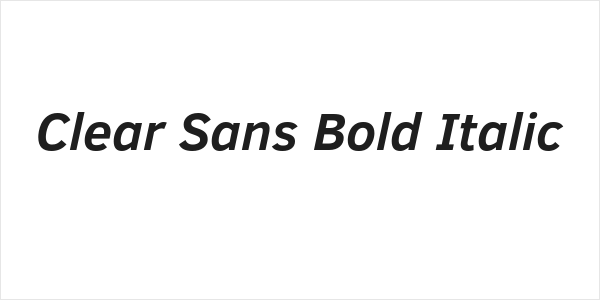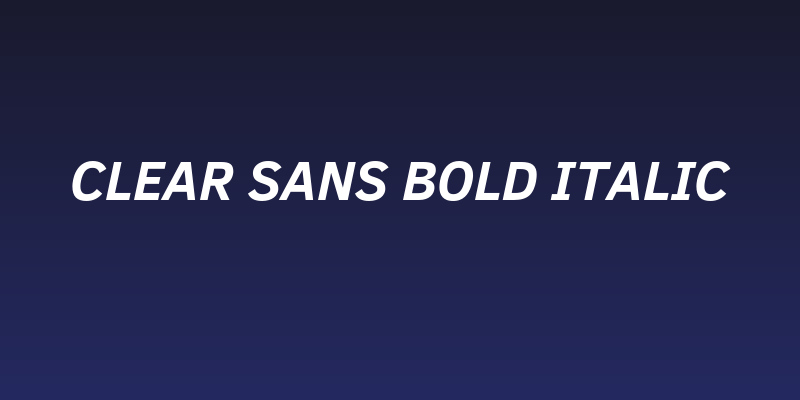
Clear Sans Bold Italic Font
Clear Sans Bold Italic Description
This typeface exhibits a clean and modern aesthetic with a bold and italicized style. The characters are well-defined with smooth curves and a slight slant, enhancing readability while maintaining a dynamic appearance. The uppercase and lowercase letters are proportionate, and the numerals are clear and distinct. Special characters are included, offering versatility for various design needs. The overall design is sleek and professional, suitable for both digital and print media.
| Use Case | Headlines, Logos, Digital content |
| Proposed Projects | Ideal for branding projects, headlines, digital content, and advertising materials where a modern and bold statement is needed. |